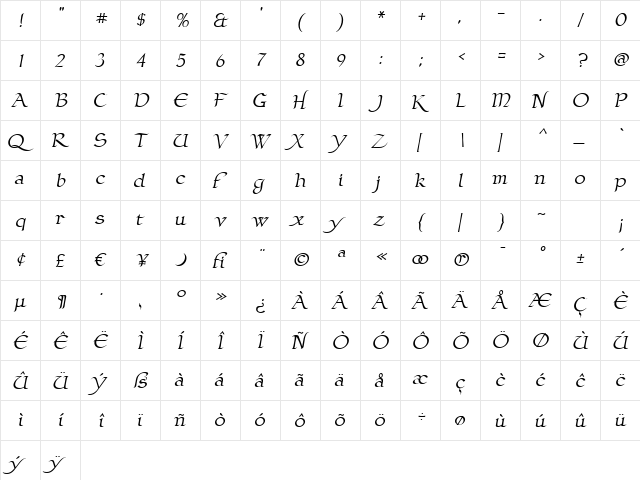
ClaustrumManuscript Regular
Design Context for ClaustrumManuscript Typeface
ClaustrumManuscript brings a calligraphic fluidity to the page — its connecting strokes and expressive curves give it an unmistakably human quality.